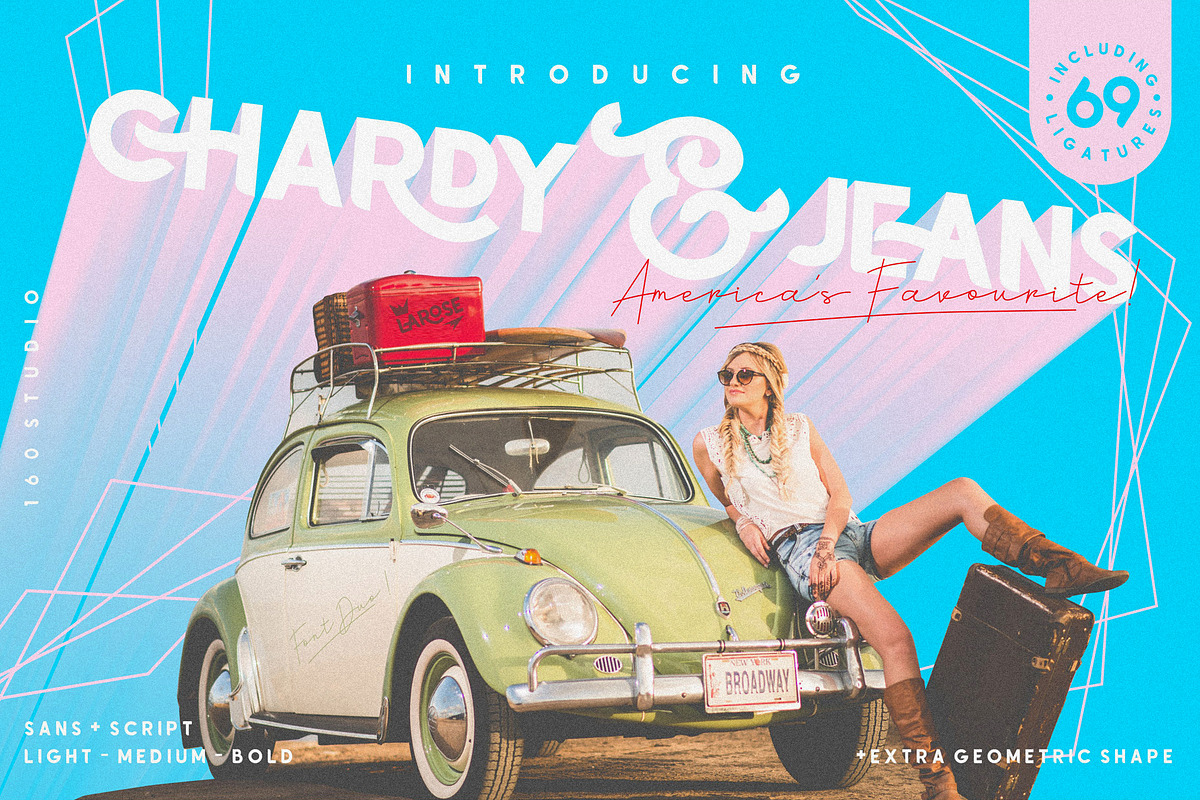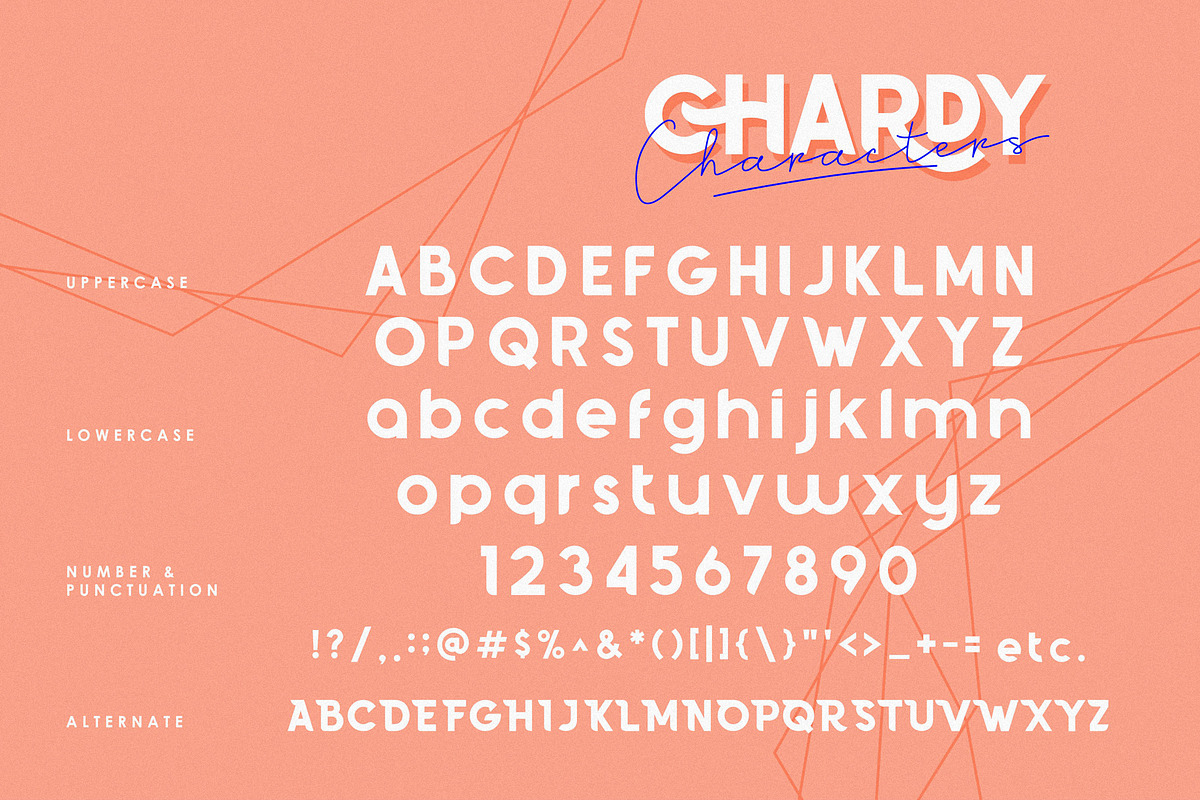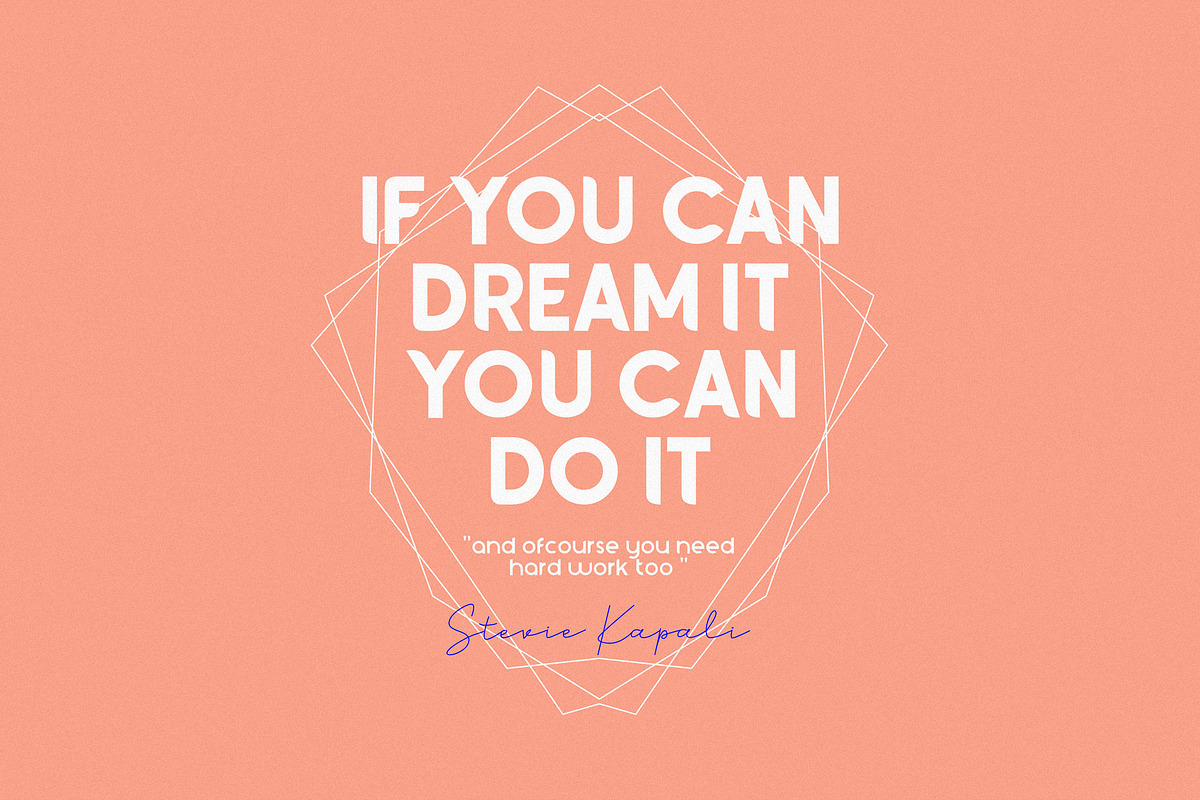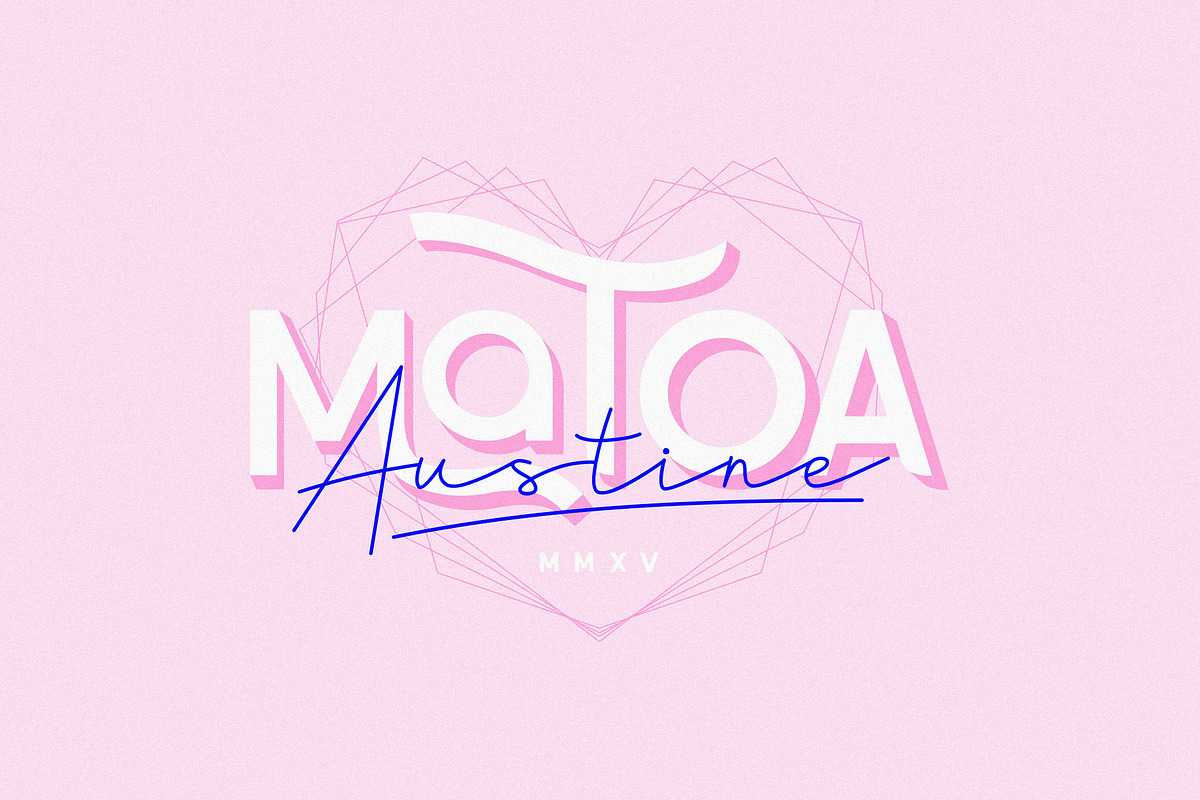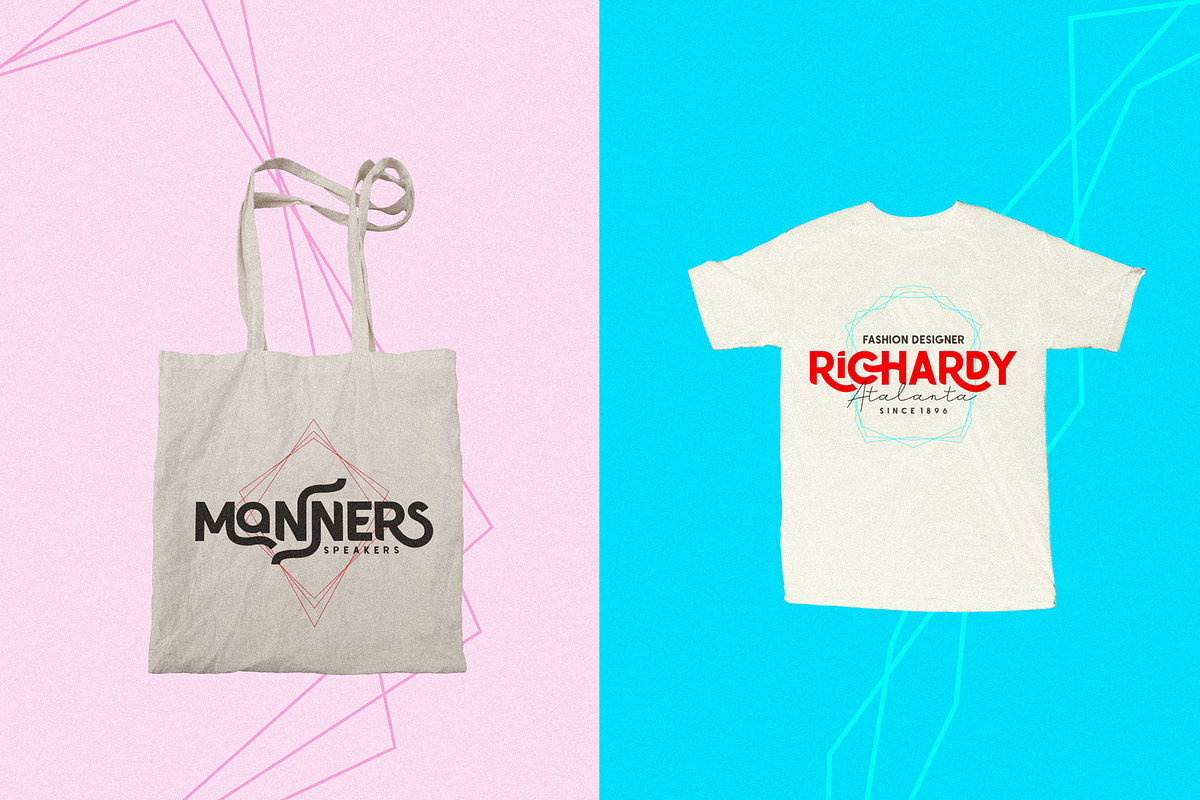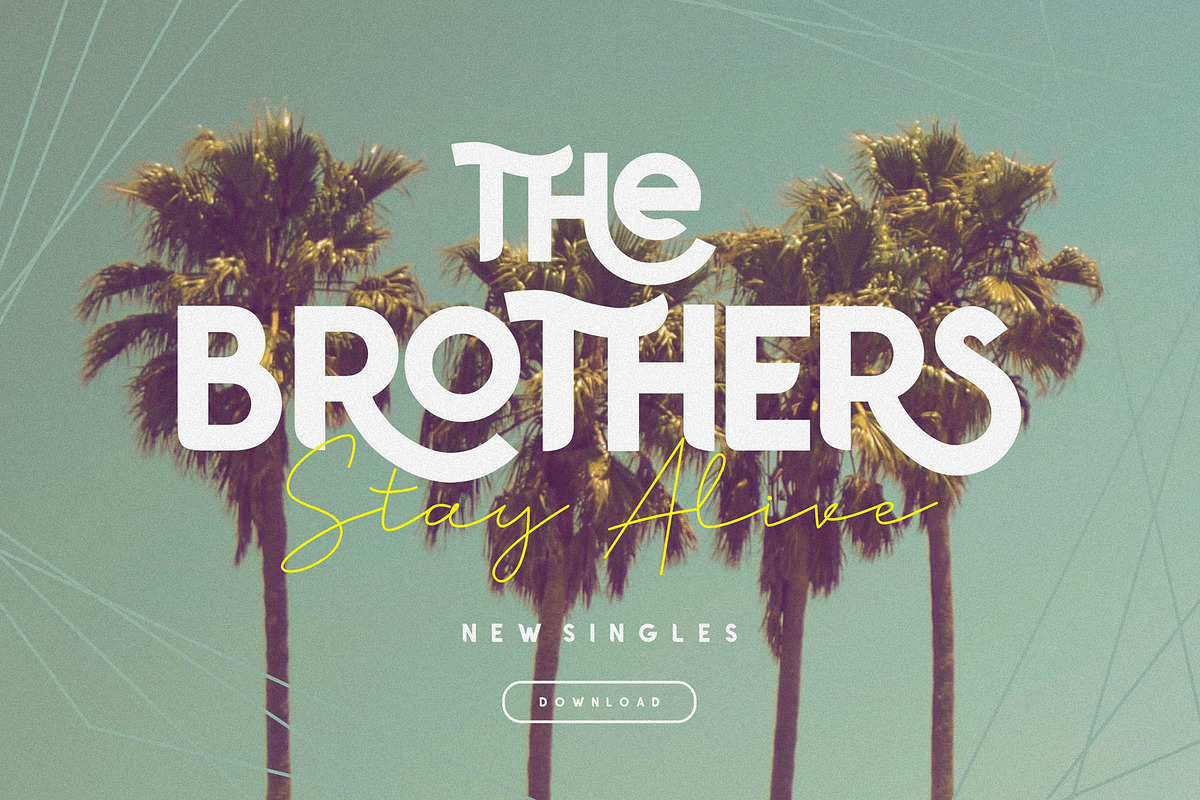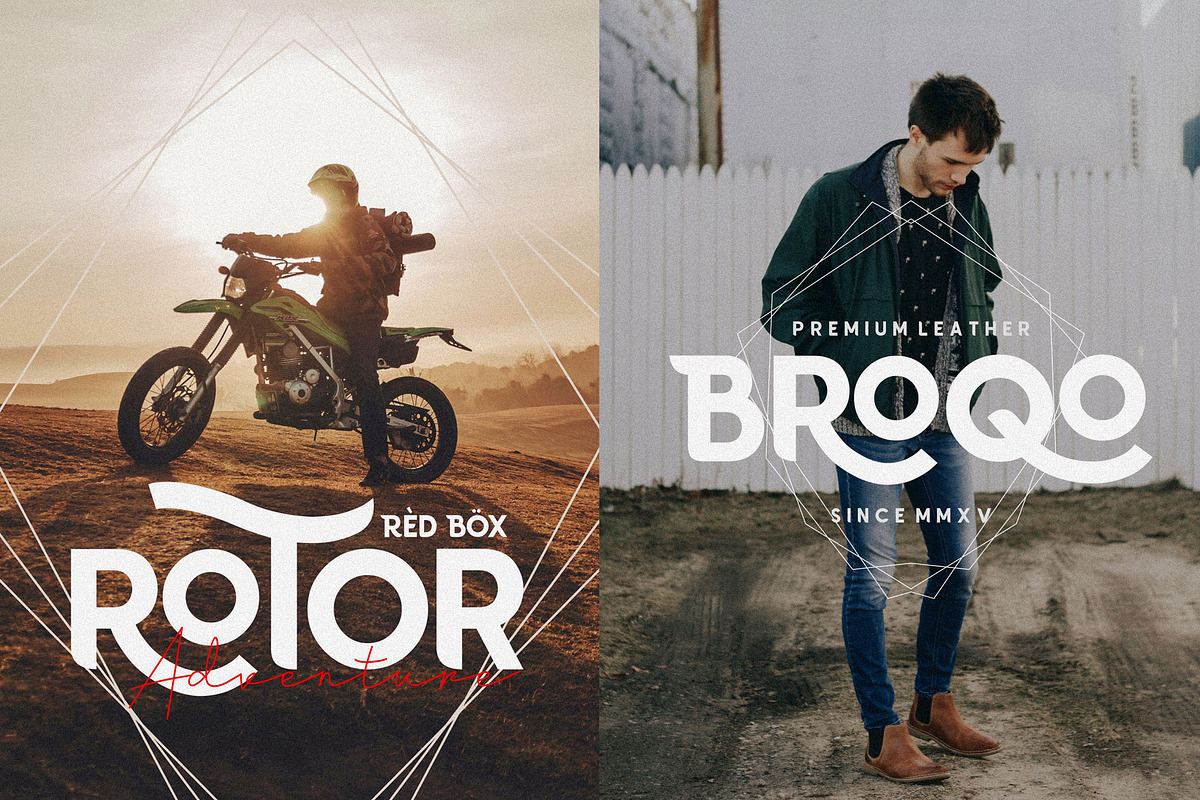
Chardy Font + Extras
Introducing 160 Studio new font. yes its CHARDY, its simple and modern font. perfect for branding, logo, packaging, poster, etc. comes in sans and script version, also tons of ligatures and alternates to make unique!.
- comes in sans and script version, also tons of ligatures and alternates to make unique!.
Chardy Font + Extras by 160 Studio fits naturally into Branding, posters, packaging, typography.